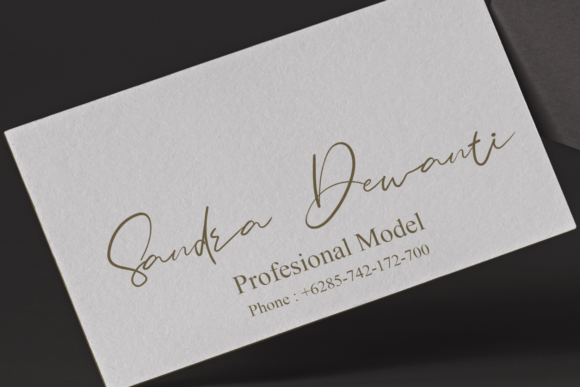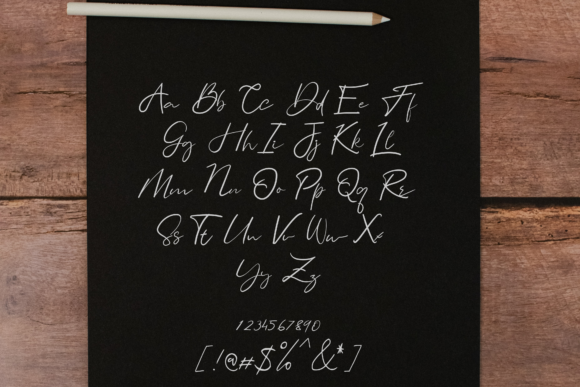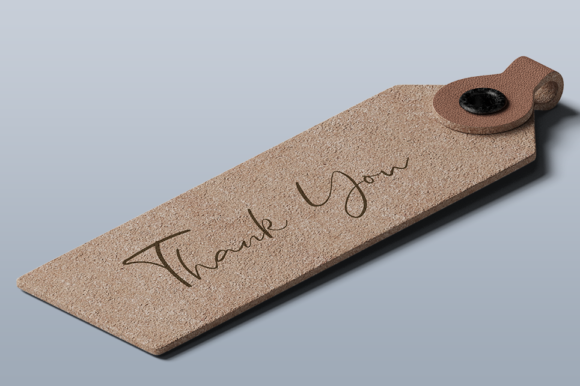
Coffe Sendu Font: Elevate Your Designs with Elegance and Class
In the world of typography, a well-chosen font can make all the difference in transforming a design from ordinary to extraordinary. For those seeking a lovely and delicate script font that exudes elegance and class, Coffe Sendu is an exceptional choice. This beautifully crafted font is specifically designed for individuals who require a refreshing and stunning look for their designs.
The Essence of Coffe Sendu Font
Coffe Sendu is a script font that embodies sophistication and refinement. Its delicate strokes and elegant curves make it an ideal choice for a wide range of design projects, from wedding invitations and branding materials to packaging and digital content. The font’s unique charm lies in its ability to add a touch of luxury and poise to any design, making it perfect for designers and crafters who aim to create visually appealing and high-end products.
Key Features of Coffe Sendu Font
- Elegant and Delicate Design: Coffe Sendu boasts a beautiful, hand-crafted design that lends an air of sophistication to any project.
- Script Style: The font features a classic script style with flowing curves and subtle variations in line width, creating a sense of movement and fluidity.
- High Versatility: Coffe Sendu is suitable for a variety of applications, including logos, titles, headings, and body text, making it a versatile addition to any designer’s toolkit.
- Easy to Read: Despite its elegant and delicate nature, Coffe Sendu remains highly legible, ensuring that your message is conveyed clearly and effectively.
Uses of Coffe Sendu Font
The versatility of Coffe Sendu makes it an excellent choice for a multitude of design projects. Here are some of the most popular applications:
- Wedding and Event Invitations: Add a touch of romance and sophistication to your wedding or event invitations with Coffe Sendu.
- Branding and Logo Design: Use Coffe Sendu to create a luxurious and memorable brand identity that stands out from the competition.
- Packaging Design: Elevate your product packaging with Coffe Sendu, making it more visually appealing and premium.
- Digital Content: Incorporate Coffe Sendu into your website, blog, or social media graphics to add a dash of elegance and refinement.
Tips for Using Coffe Sendu Font Effectively
To maximize the impact of Coffe Sendu, consider the following tips:
- Pair with Complementary Fonts: Combine Coffe Sendu with clean, sans-serif fonts to create a harmonious contrast and enhance readability.
- Adjust Font Sizes: Experiment with different font sizes to create visual hierarchy and emphasize key elements in your design.
- Play with Colors: Coffe Sendu looks stunning in a variety of colors, so don’t be afraid to experiment and find the perfect hue to match your brand or design.
Coffe Sendu Font is a beautiful and refreshing script font that can instantly elevate your designs with its elegance and class. Whether you’re a designer, crafter, or DIY enthusiast, this lovely font is sure to become a valuable addition to your creative arsenal. With its delicate design, versatility, and ease of use, Coffe Sendu is the perfect choice for anyone looking to add a touch of sophistication and refinement to their projects.